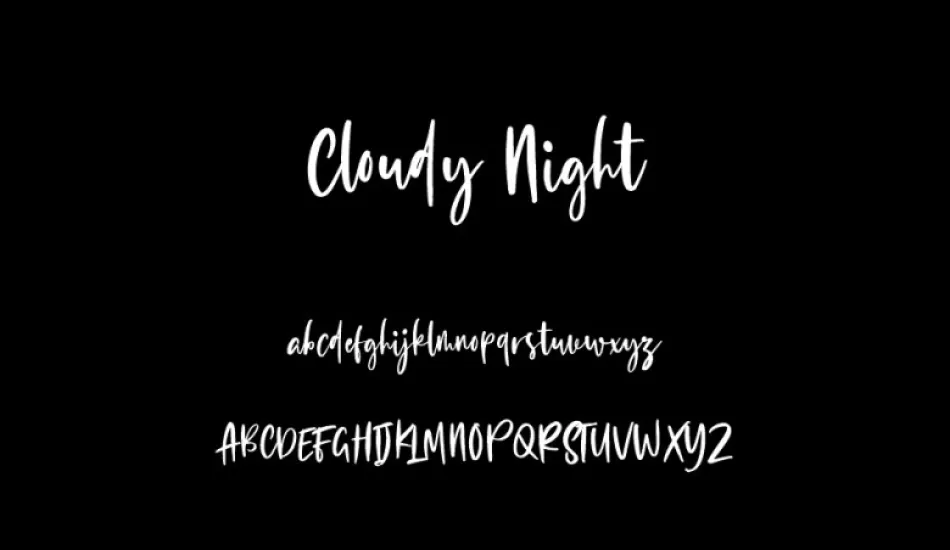
Cloudy Night is a very beautiful handwritten font. This amazing font was designed by Man Anis Studios. This font is also good for pairing with other typefaces like romantica font.
This font has 68 characters, 72 glyphs, and 1000 units per Em. Unicode supports 2.0 and BMP only.  The weight of this font is medium(normal) and its width is condensed.
NameCloudy Night Font
DesignerMas Anis Studios
FoundryMas Anis
TypeHandwritten
Date Released2020